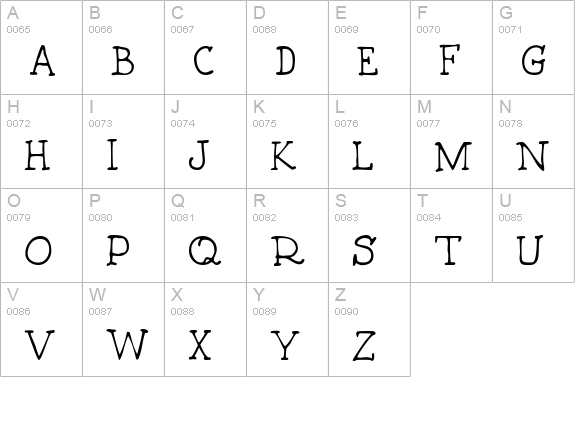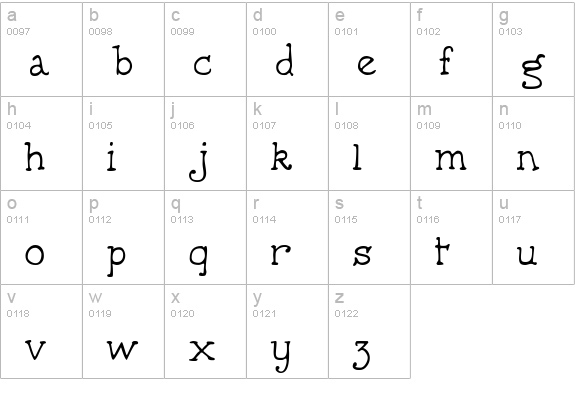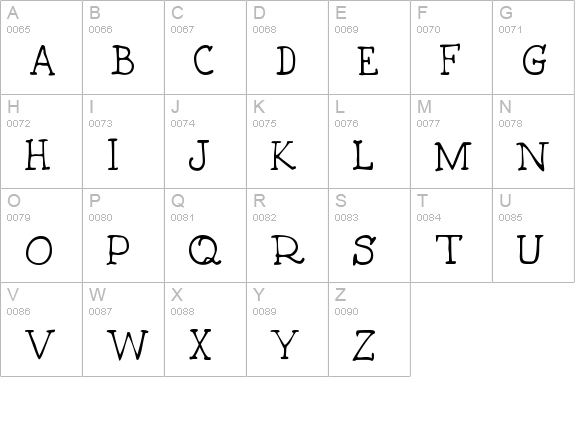
5thGrader font is a whimsical and playful typeface that perfectly captures the essence of youthful creativity and imagination. With its friendly curves and charming details, this font is sure to bring a touch of fun to any project. Whether you're working on a school poster, children's book, or any other design that calls for a sense of innocence and wonder, 5thGrader font is the perfect choice. What's even better is that 5thGrader font is completely free to download at FontsMarket.com. Yes, you read that right – you can easily access this delightful font without spending a dime. So why wait? Add a sprinkle of childlike joy to your designs with 5thGrader font today!